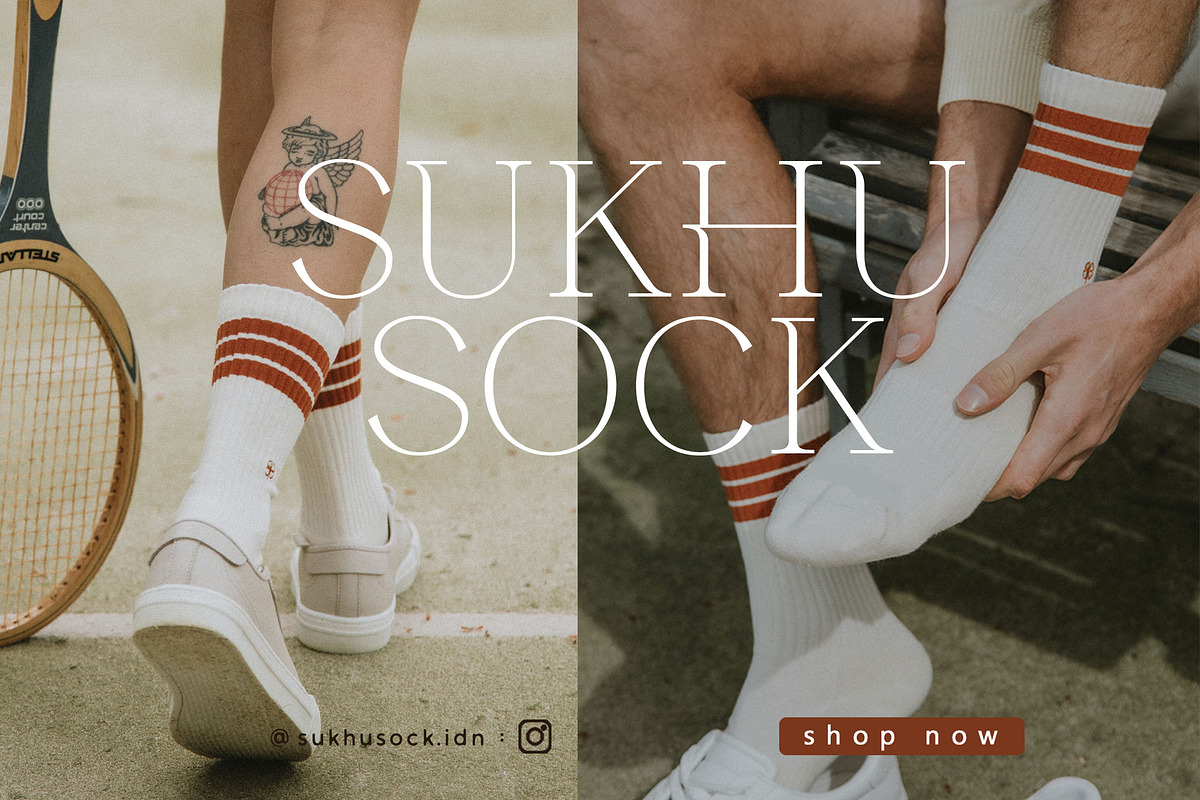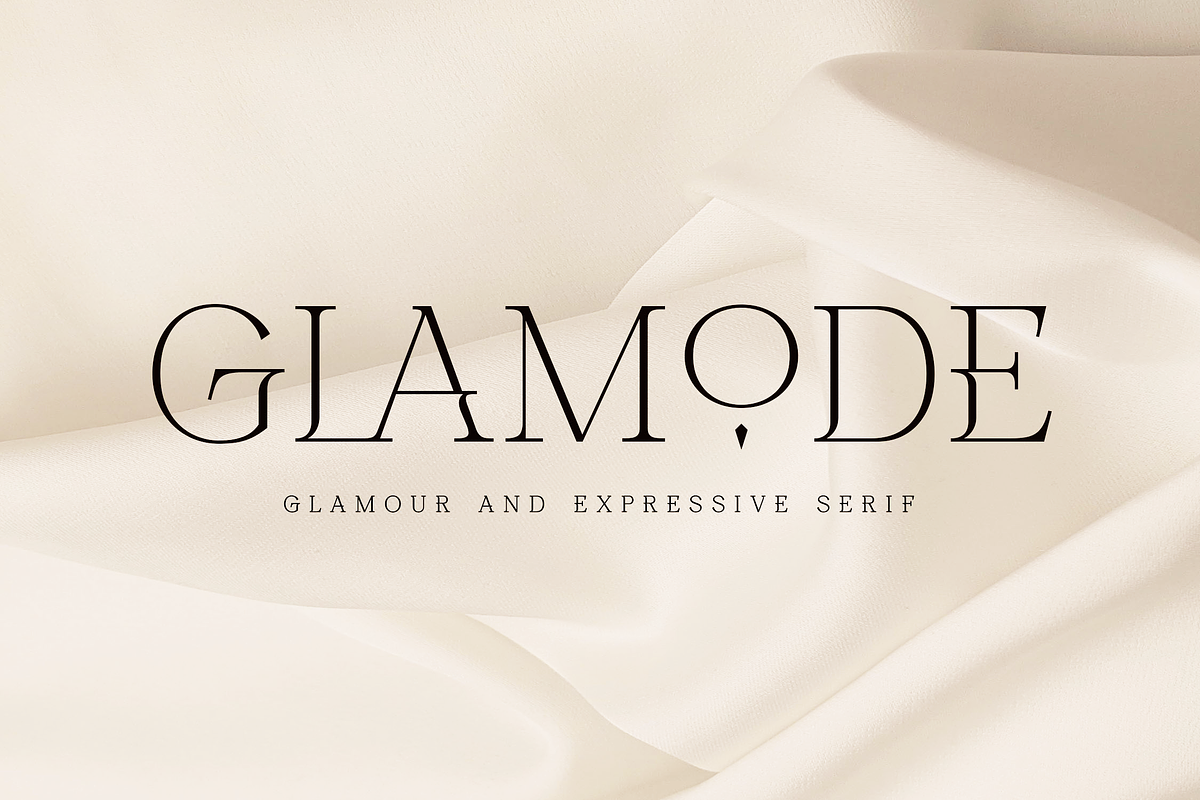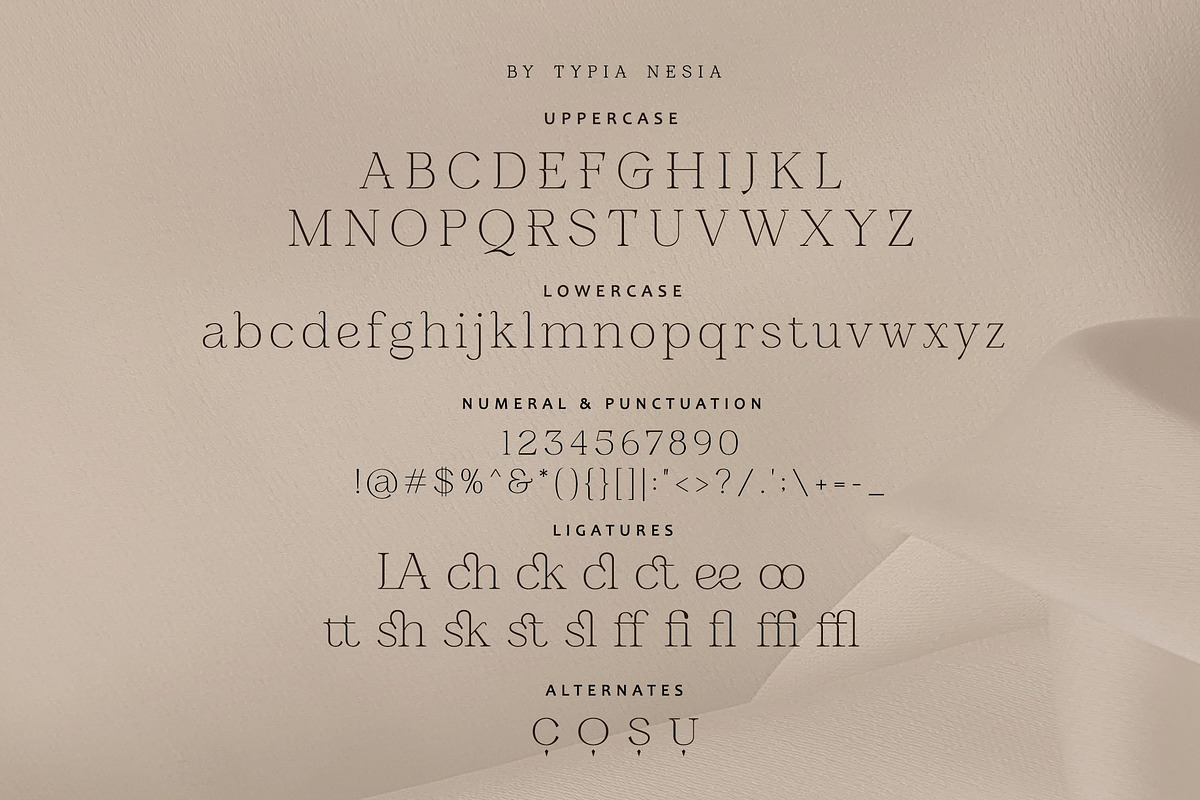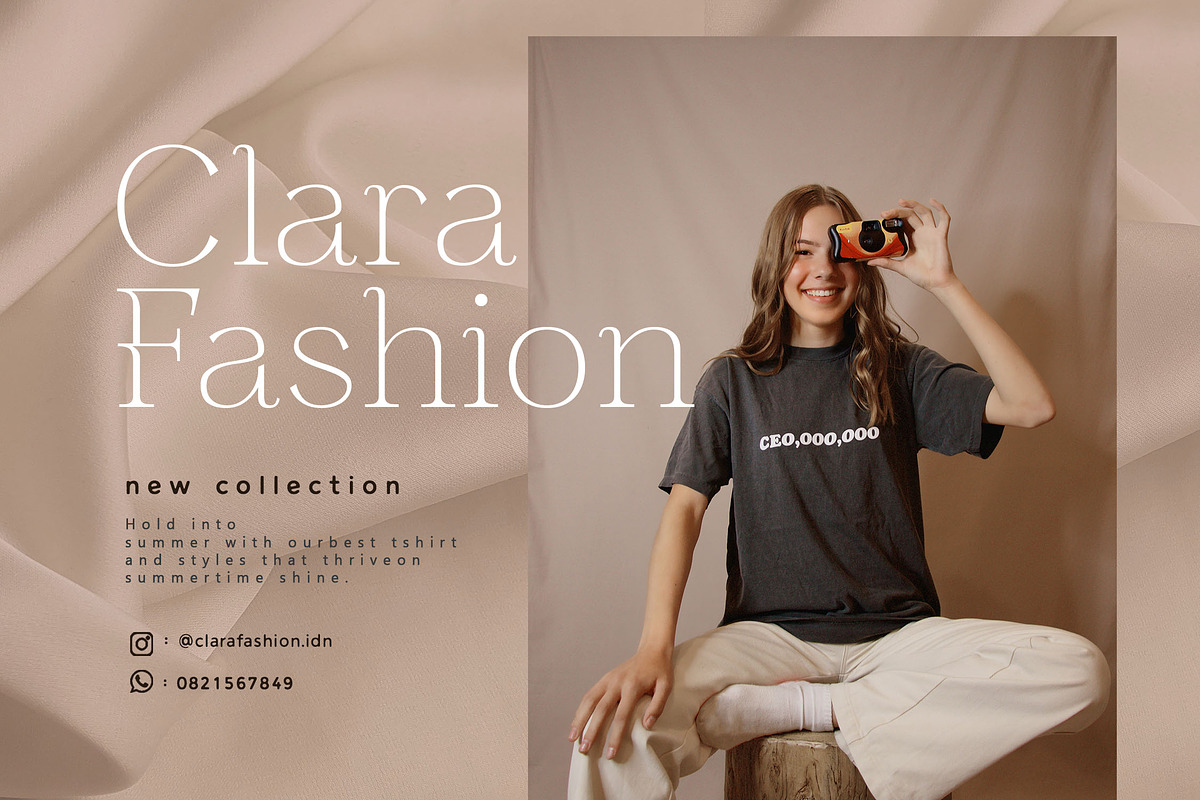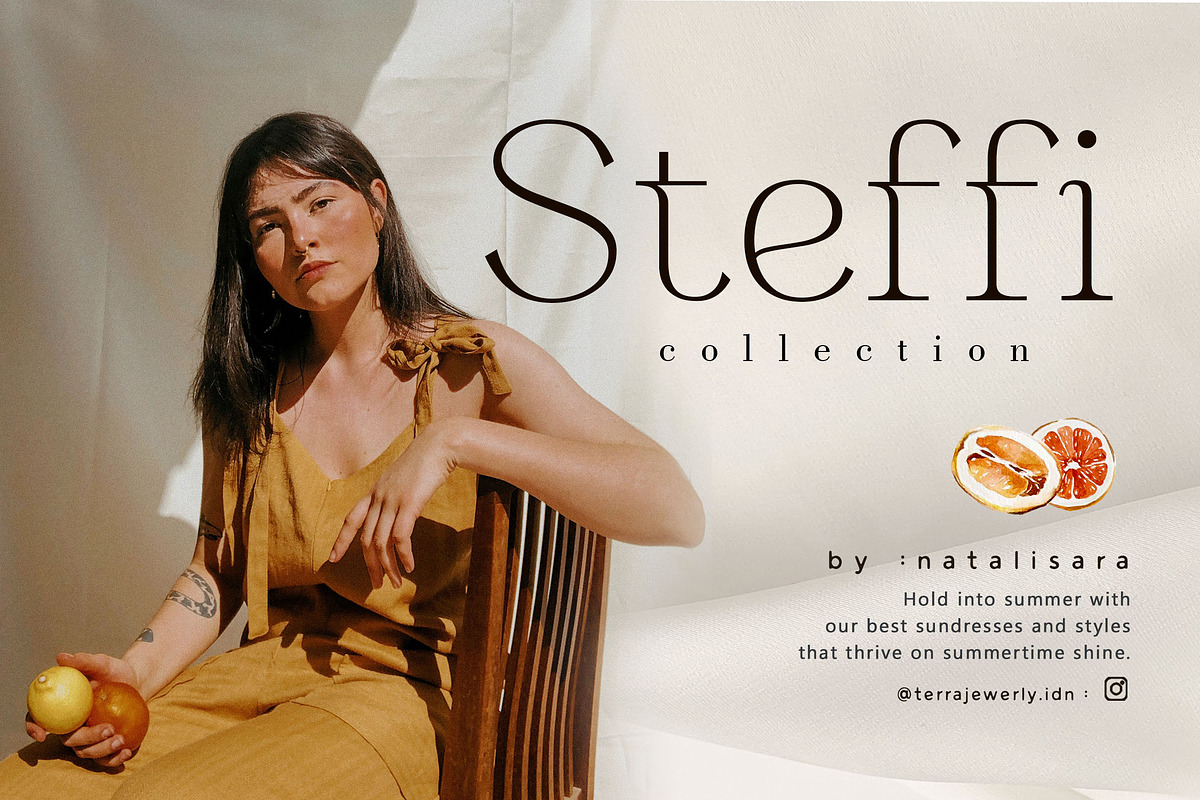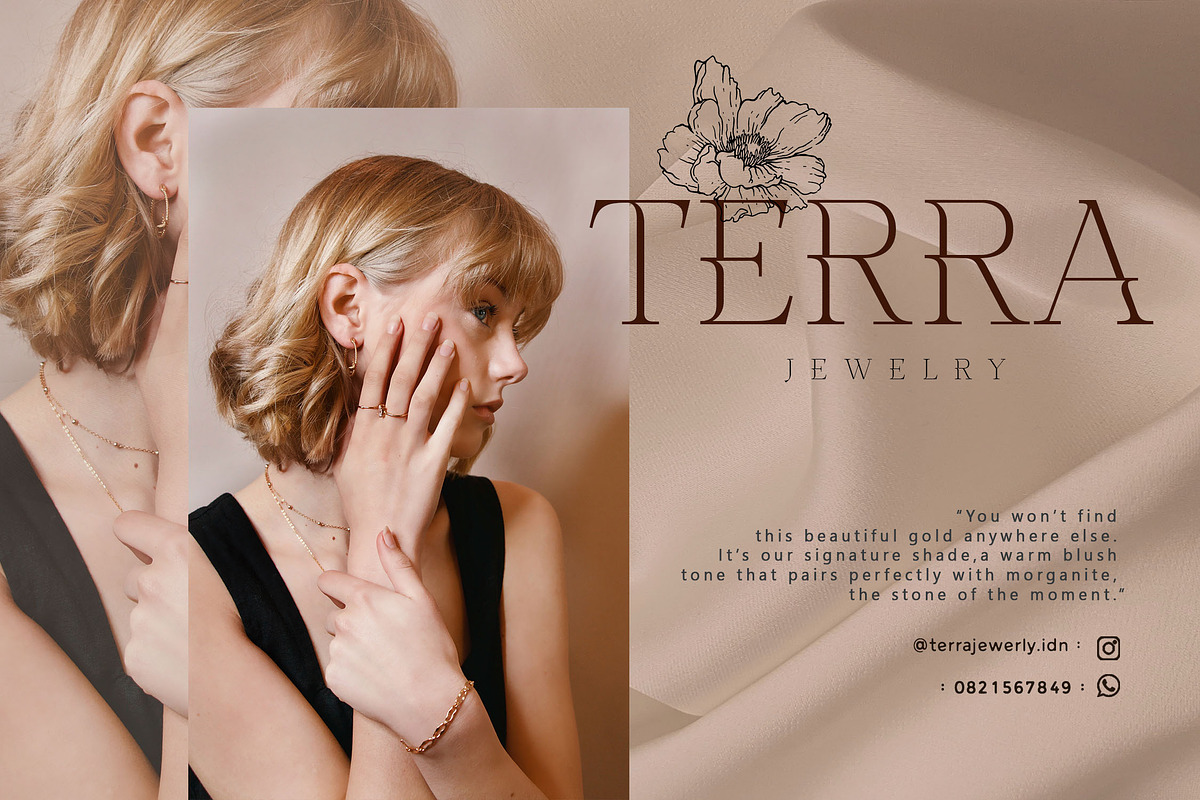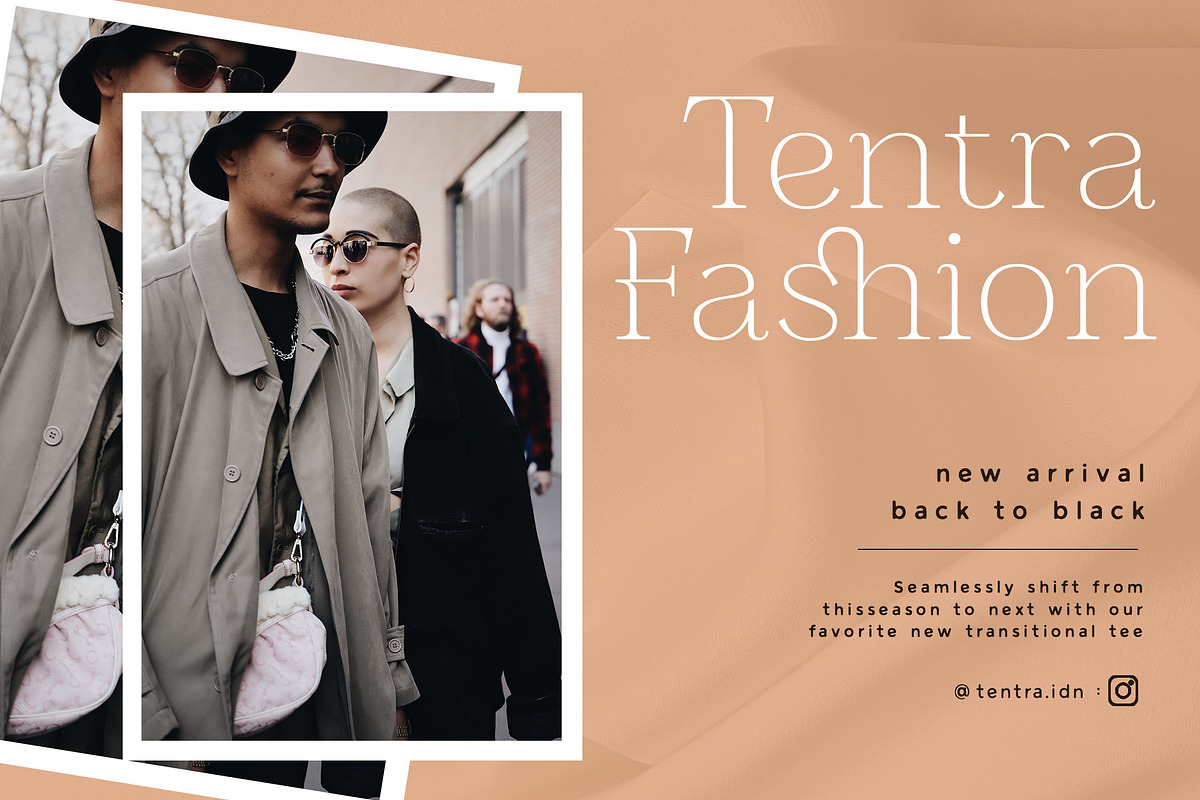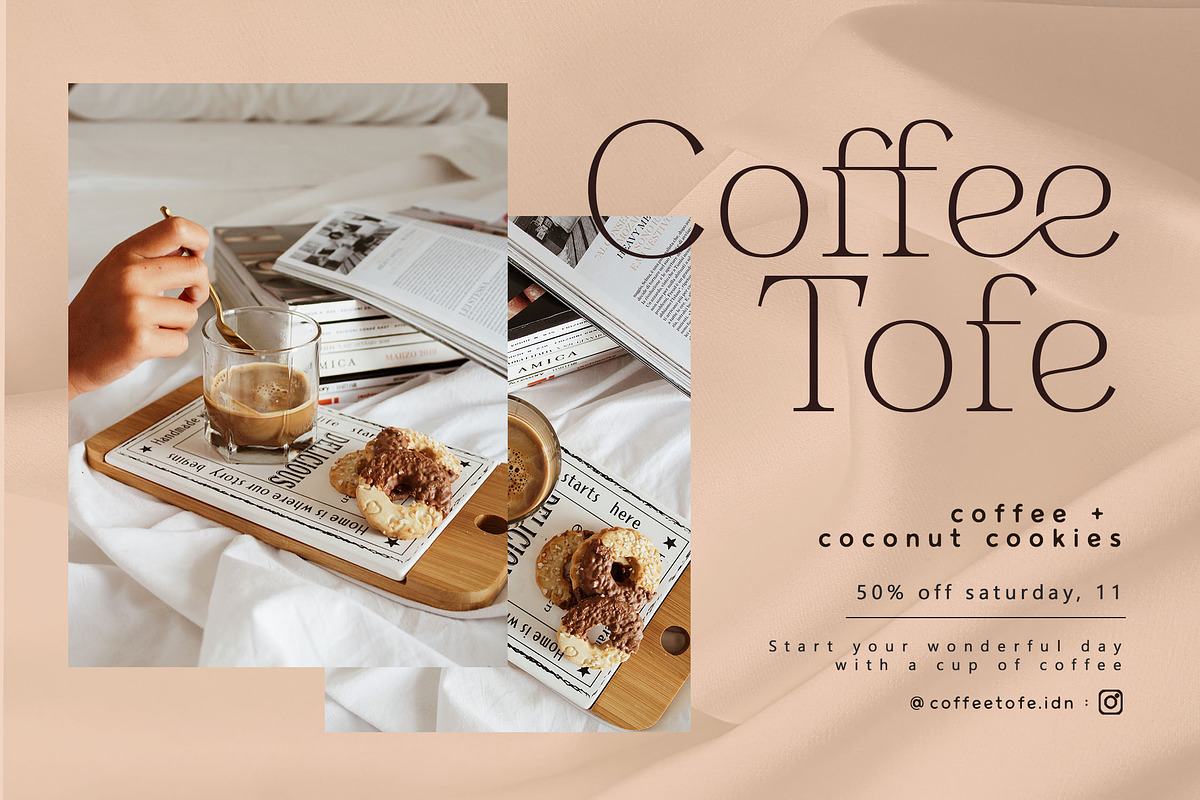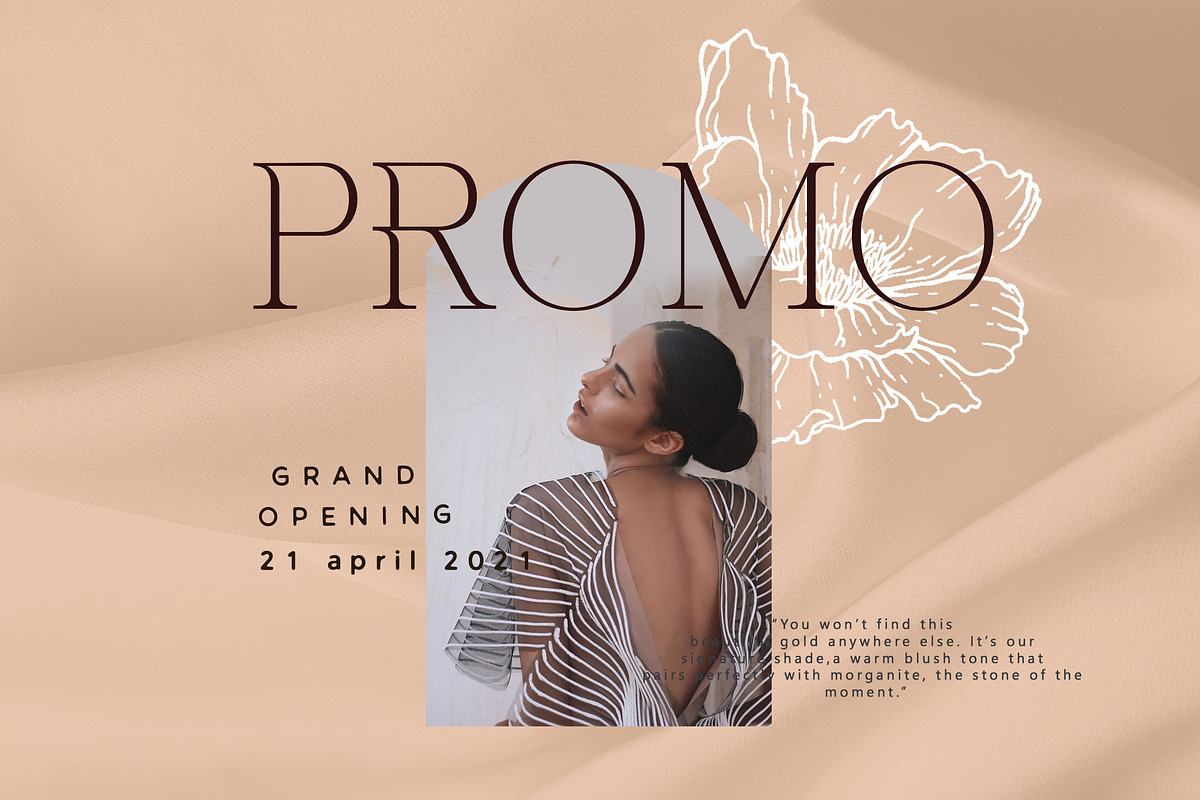
Glamode - Expressive Serif
Glamode - Elegant Glamour and Stylish Serif - Expressive Modern Classy and Beauty Display Serif Font
Glamode Elegant Serif font is perfect for your up coming projects. Such as luxury logo and branding, classy editorial design, woman magazine, cosmetic brand, fashion promotional, art gallery branding, museum, historical of architectural, boutique branding, stationery design, blog design, modern advertising design, card invitation, art quote, home decor, book/cover title, special events and any more.